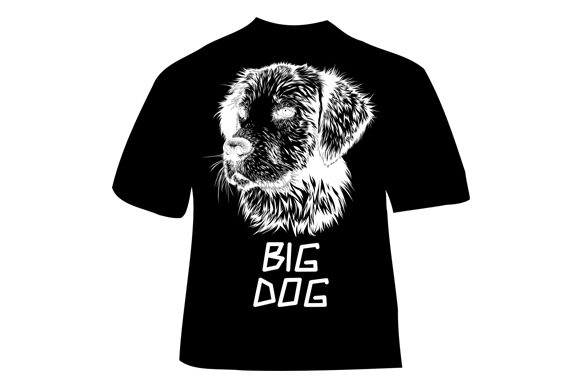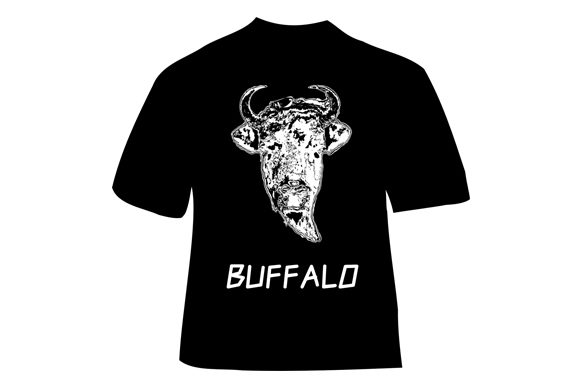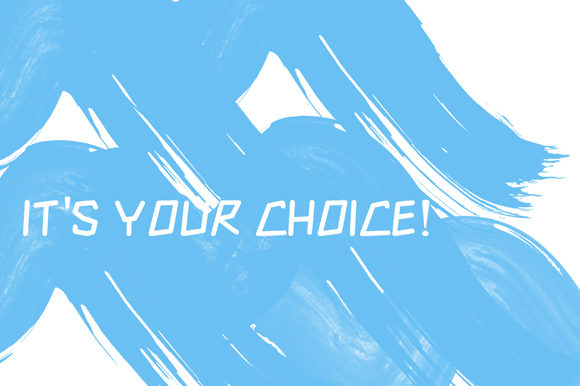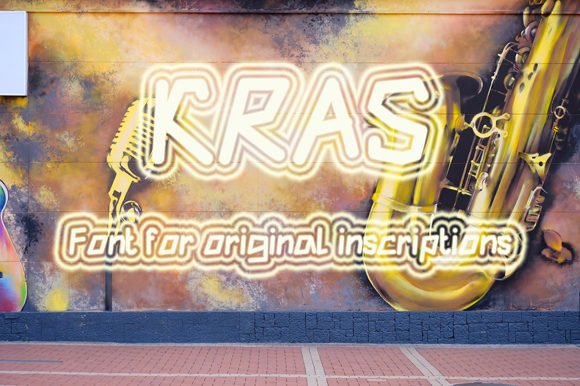
Introduction to Kras Font
Kras is a neat and incredibly crafty display font.
It is defined by playfulness and taste and it will make a wonderful choice for a wide range of informal or trendy designs .